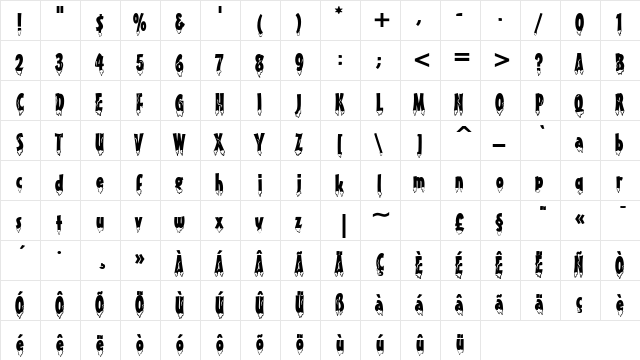
Eiszapfen Normal
Design Context for Eiszapfen Typeface
Eiszapfen is a composed and adaptable typeface that performs quietly and consistently across a wide range of design contexts.